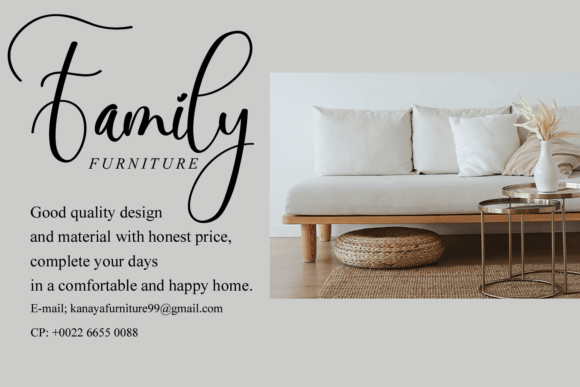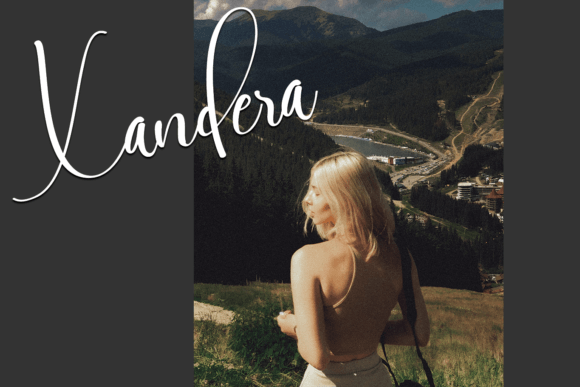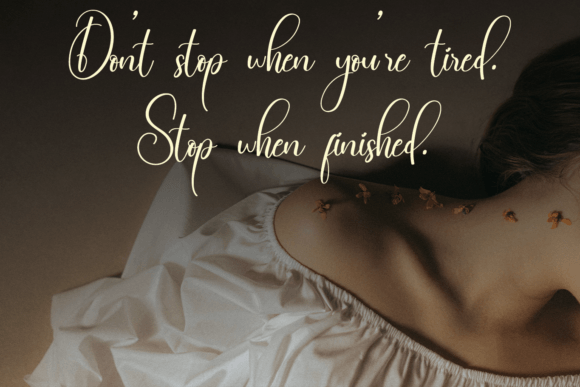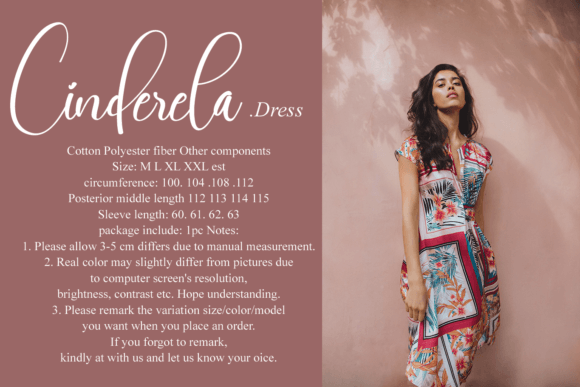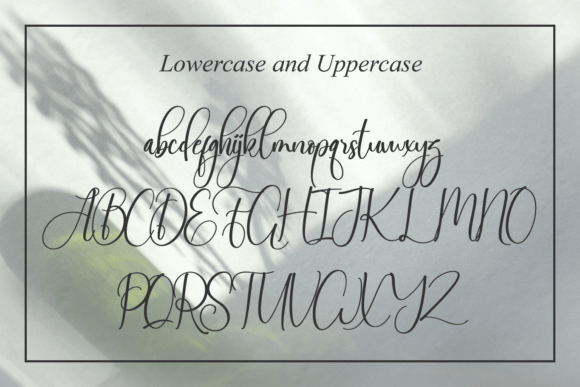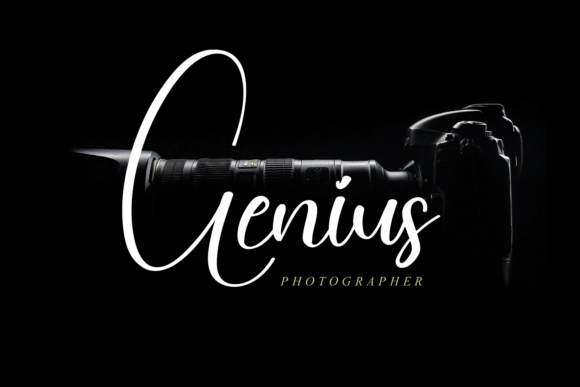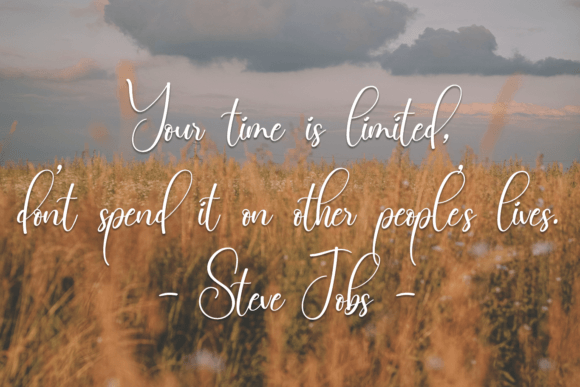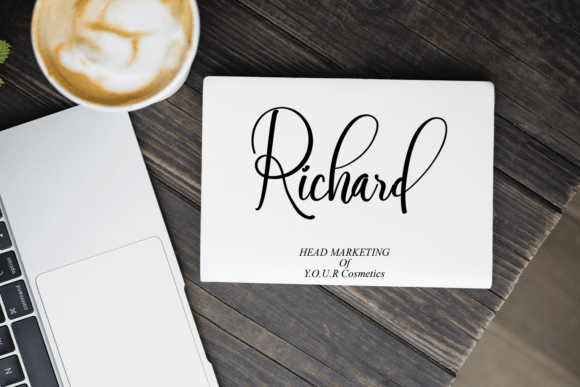
Wandering Font
About Wandering Font
“Wandering” is a gracefully thin handwritten font, meticulously crafted to capture your heart and become an absolute favorite. It effortlessly retains its elegant calligraphic roots while exuding a sense of modernity and freshness.
The defining quality of “Wandering” is its delicate and thin lettering, which imparts a sense of refinement and sophistication to your designs. Its slender strokes maintain a sense of timeless calligraphic elegance, while its contemporary style infuses a breath of fresh air.
This font is designed to cater to a wide range of design needs, making it a versatile choice for various creative applications. Whether you’re working on elegant invitations, crafting minimalistic logos, or seeking to add a touch of finesse to your digital or print materials, “Wandering” adapts seamlessly to your creative vision.
The balance between classic calligraphic influences and a modern, fresh aesthetic makes “Wandering” an ideal choice for projects where sophistication and contemporary style are essential. It enhances the visual appeal of your work while maintaining a sense of approachability and authenticity.
In summary, “Wandering” is a superbly crafted thin handwritten font that strikes the perfect balance between classic calligraphy and contemporary design. Its elegance, versatility, and refreshing style make it a standout choice for designers looking to add a touch of sophistication to their creative projects. Embrace the graceful allure of “Wandering” in your next endeavor, and experience how it can elevate your designs to new heights of timeless beauty and modern charm.